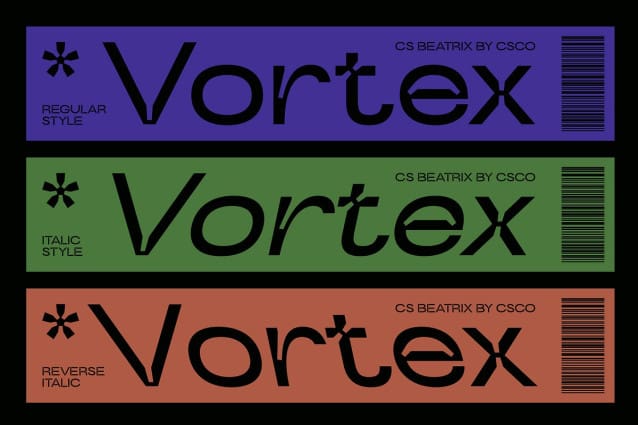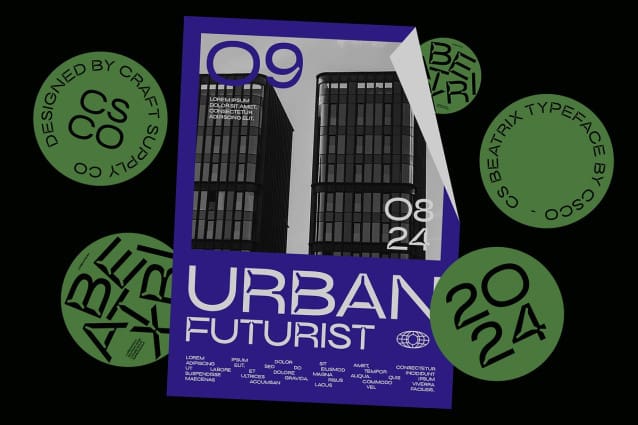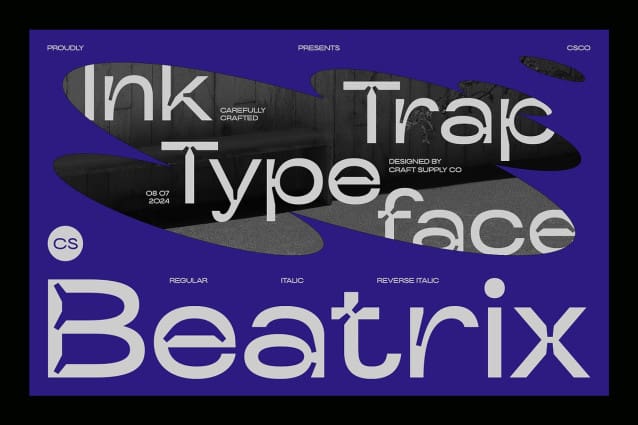
CS Beatrix Font
CS Beatrix Font – Inktrap Font is a modern sans-serif typeface featuring clean, sharp lines complemented by technical inktrap details at the letter corners. The inktrap effect, which includes small cuts or notches, enhances readability by reducing visual sharpness, making text clearer at smaller sizes.
Enhanced Readability Across Mediums The thoughtful inktrap design ensures optimal clarity across various print and digital mediums. By addressing potential issues with text legibility, CS Beatrix excels in maintaining a professional and modern appearance in any application.
Ideal for Professional and Modern Designs Perfect for branding, web design, and marketing materials, CS Beatrix offers a sophisticated and easily legible solution for projects requiring clean and professional text. Its modern aesthetic ensures it stands out in any context, delivering clarity and style.
Versatile and Professional CS Beatrix is versatile and suitable for a wide range of design applications. Its combination of sharp lines and functional inktrap details makes it a valuable asset for creating impactful, readable text in both print and digital environments.